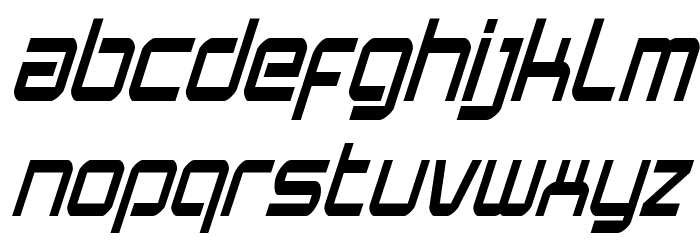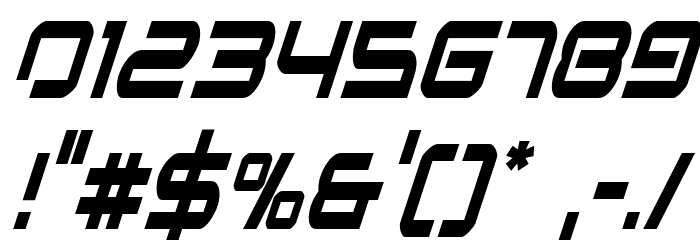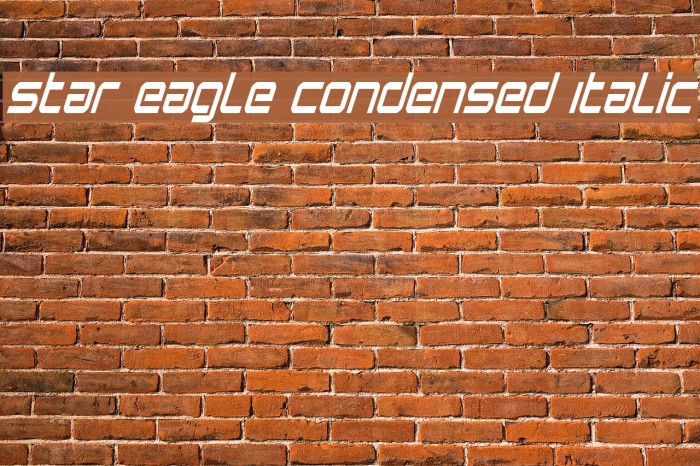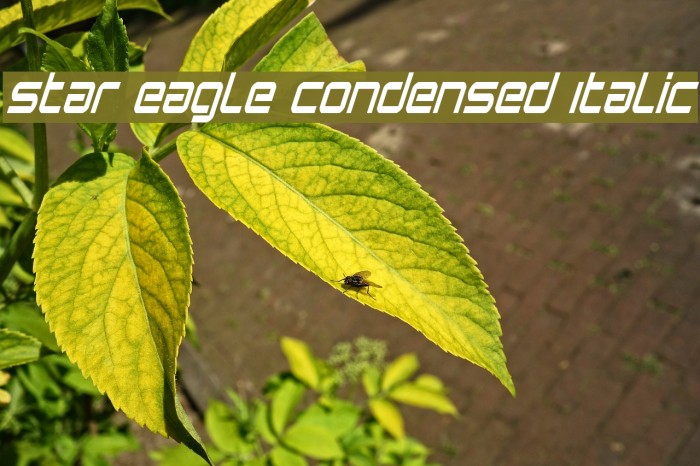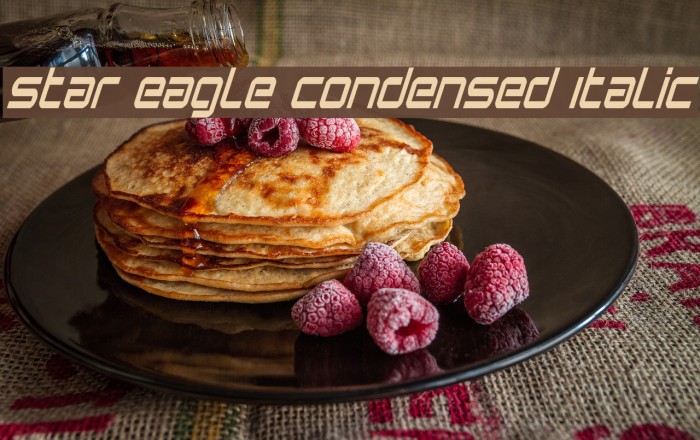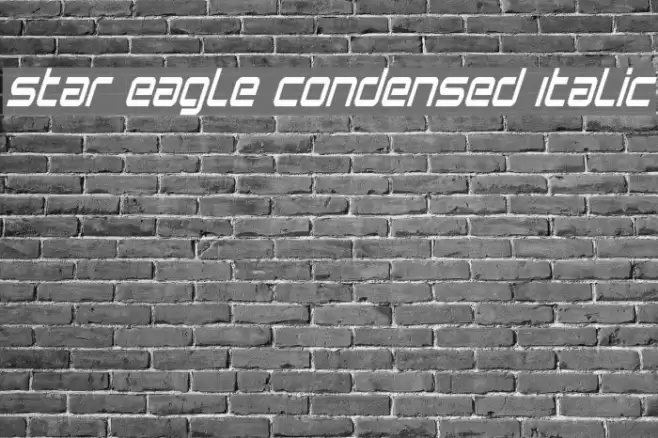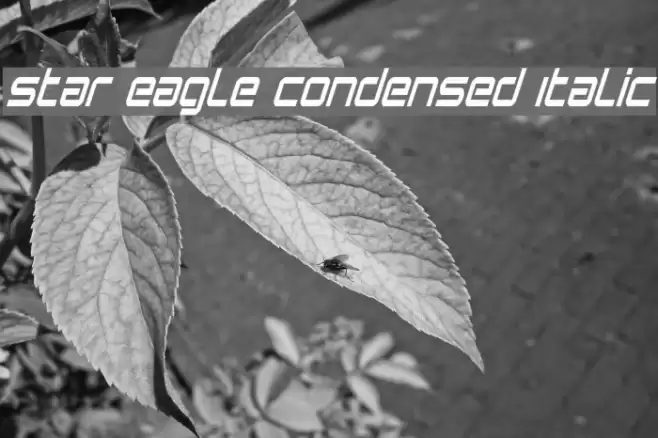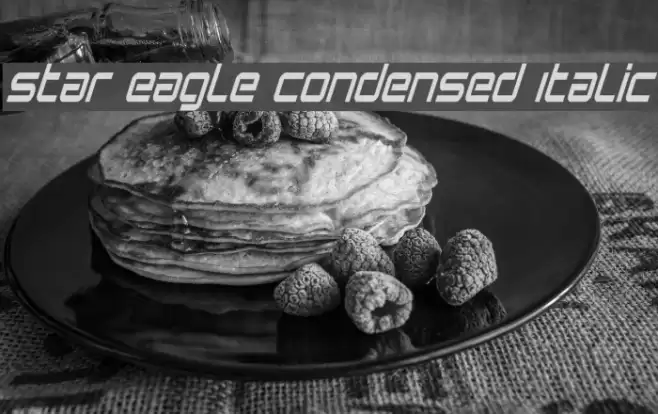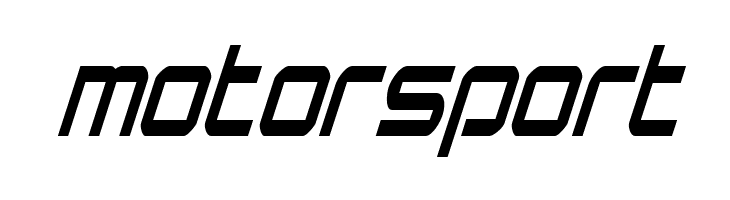
Star Eagle Condensed Italic Font
This font features a sleek, futuristic design with a condensed and italicized style. The characters are angular and dynamic, giving a sense of motion and modernity. The uppercase and lowercase letters maintain a consistent geometric structure, while the numerals and special characters complement the overall aesthetic. The font's sharp edges and slanted orientation make it ideal for projects that require a bold and contemporary look.
A sleek, futuristic, condensed italic font with angular characters.
- Proposed Projects: Ideal for sci-fi themed designs, technology branding, sports team logos, and dynamic poster headlines.
- Use Case: Headlines, Logos, Branding